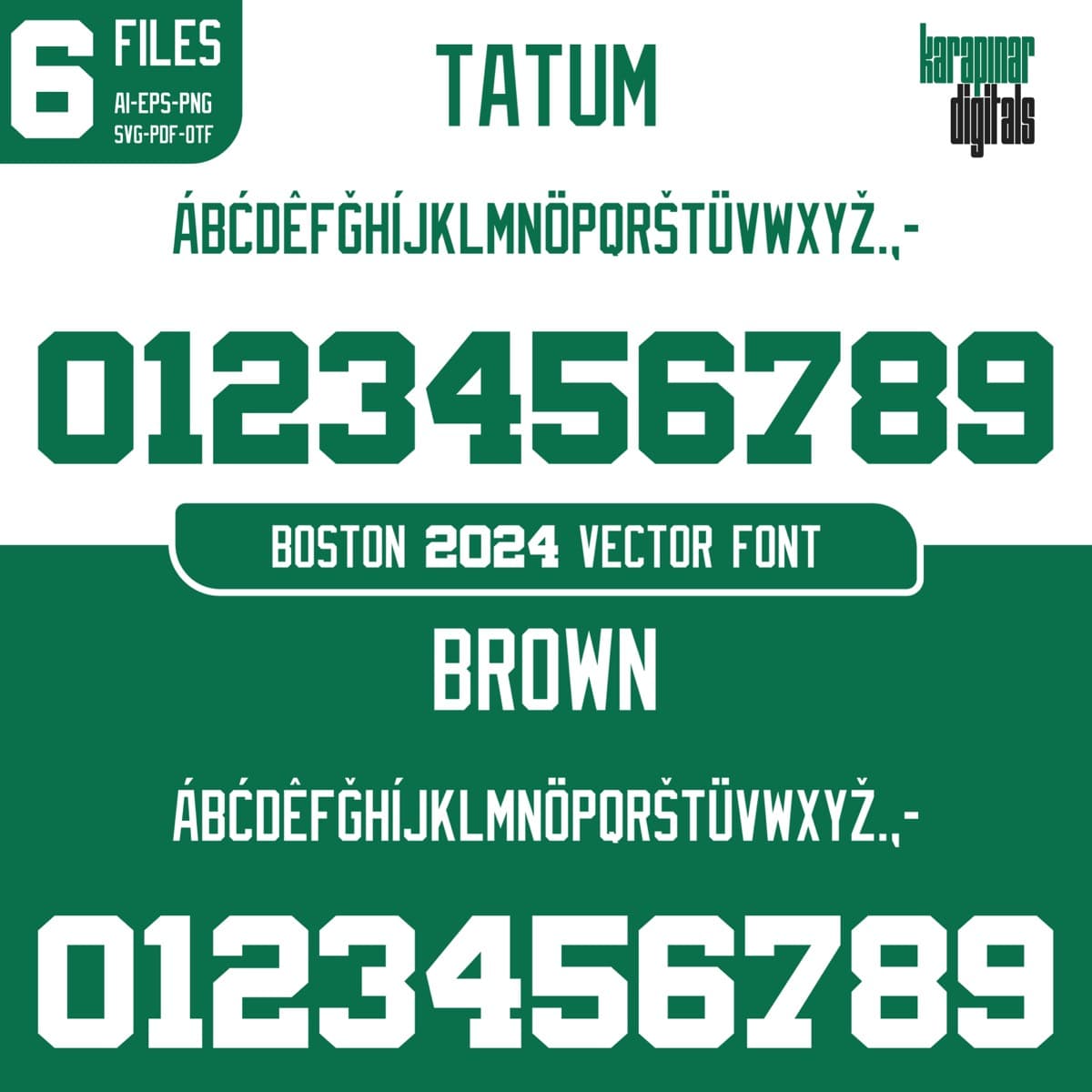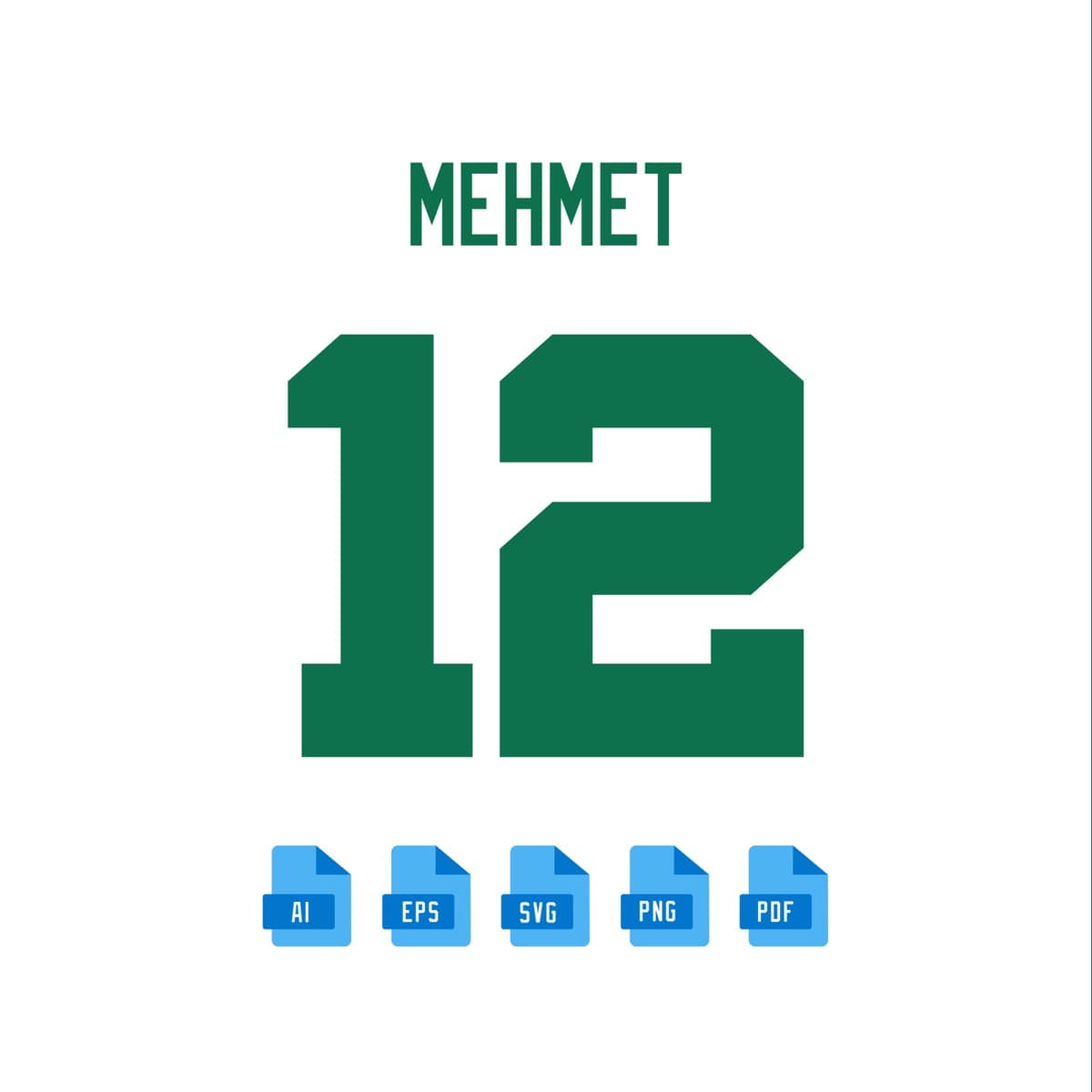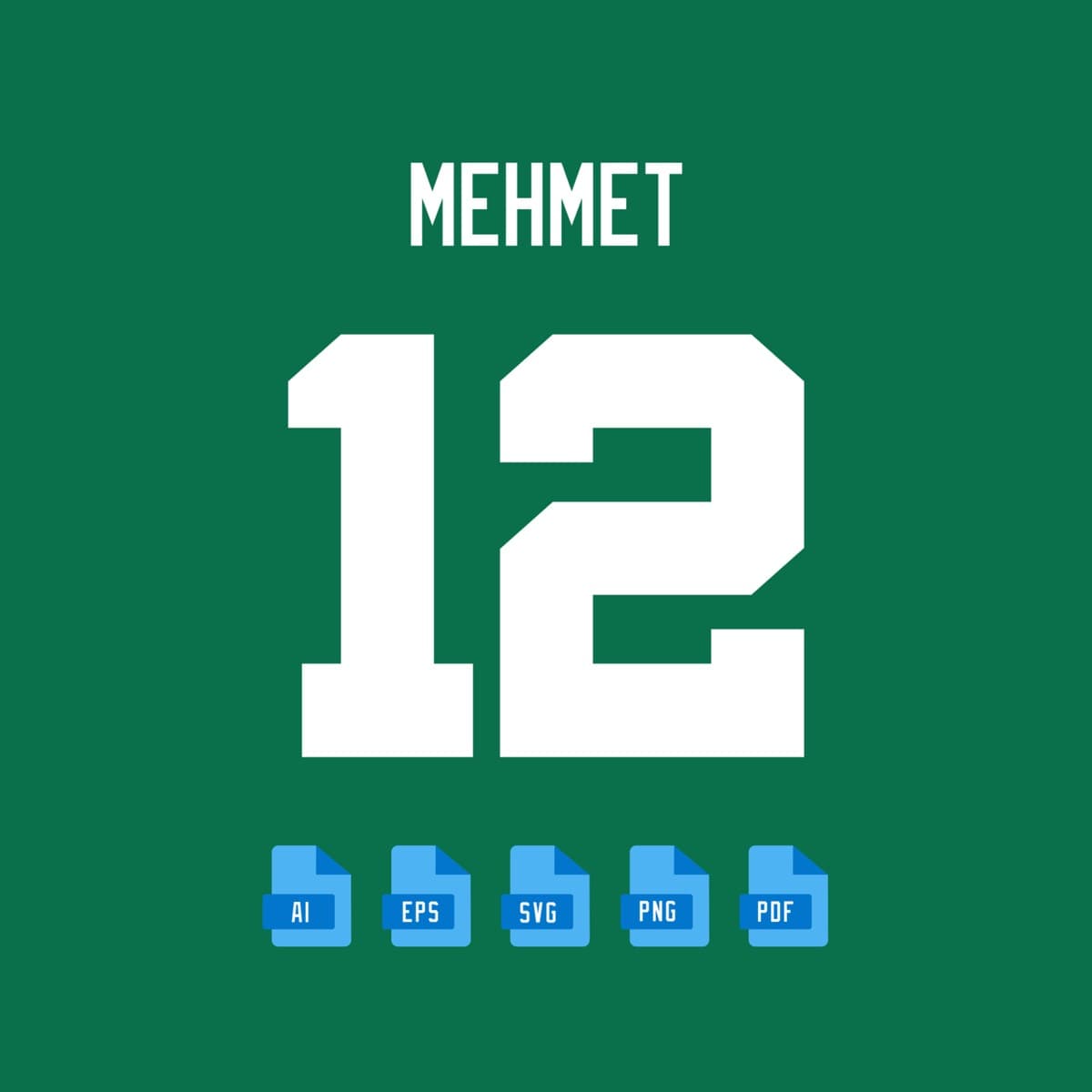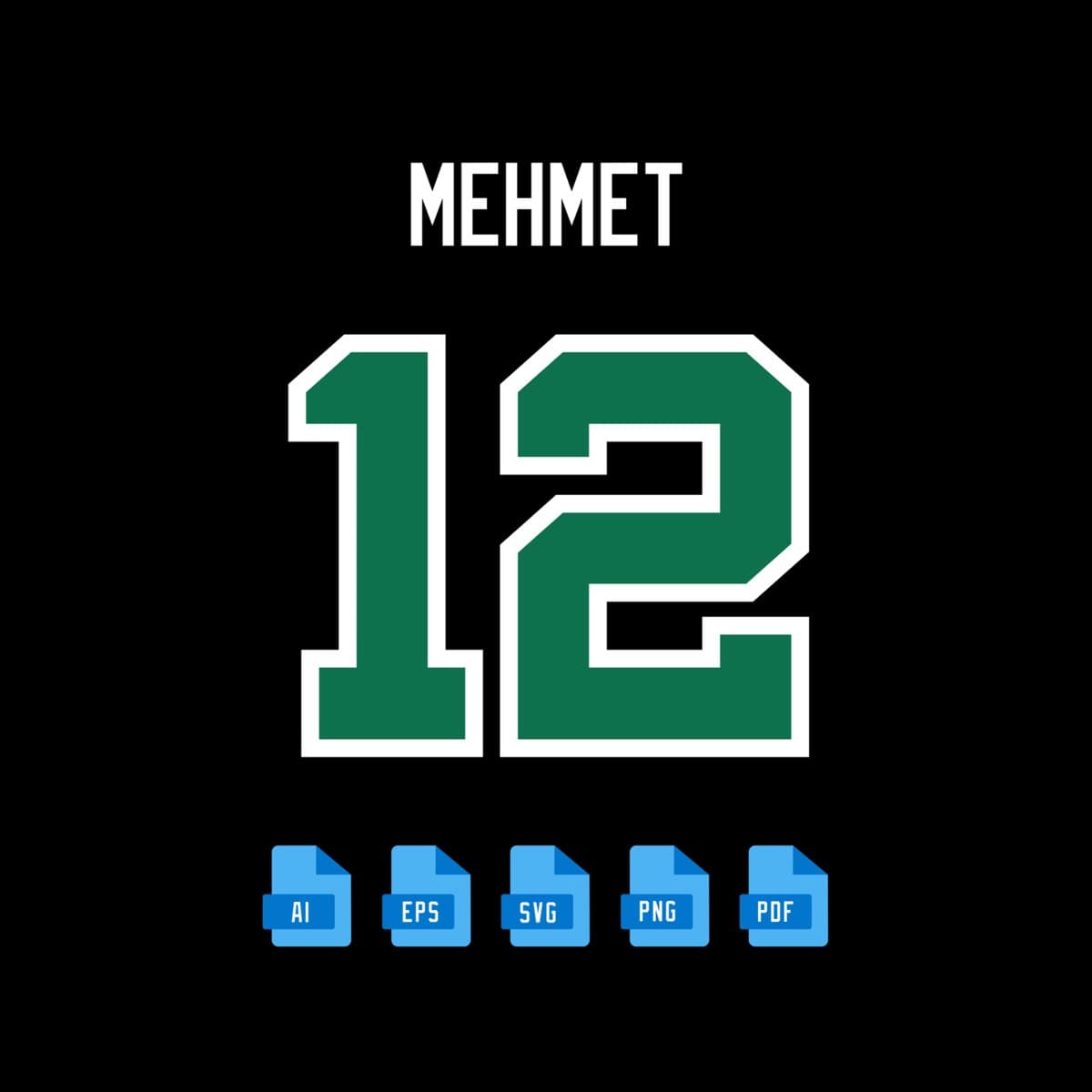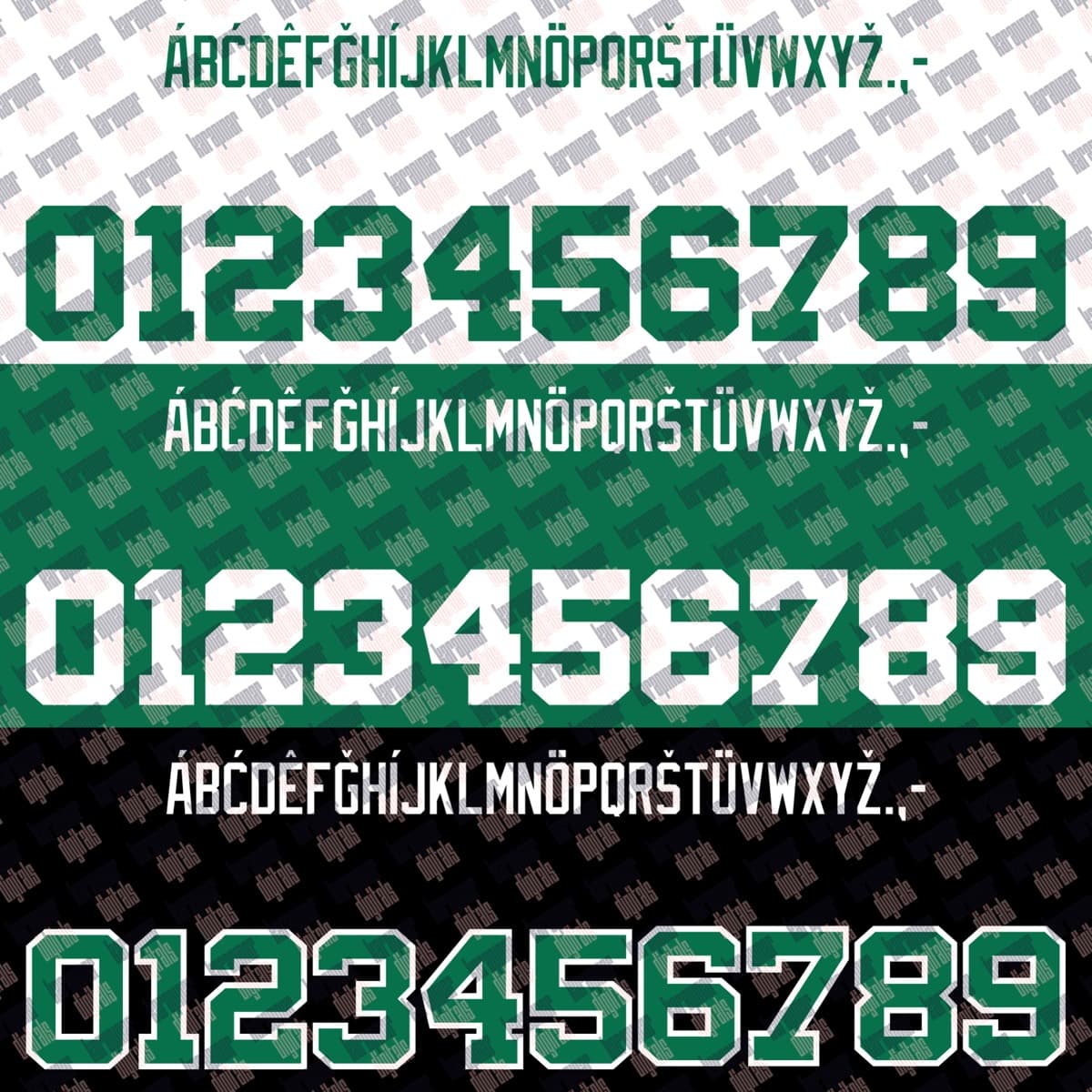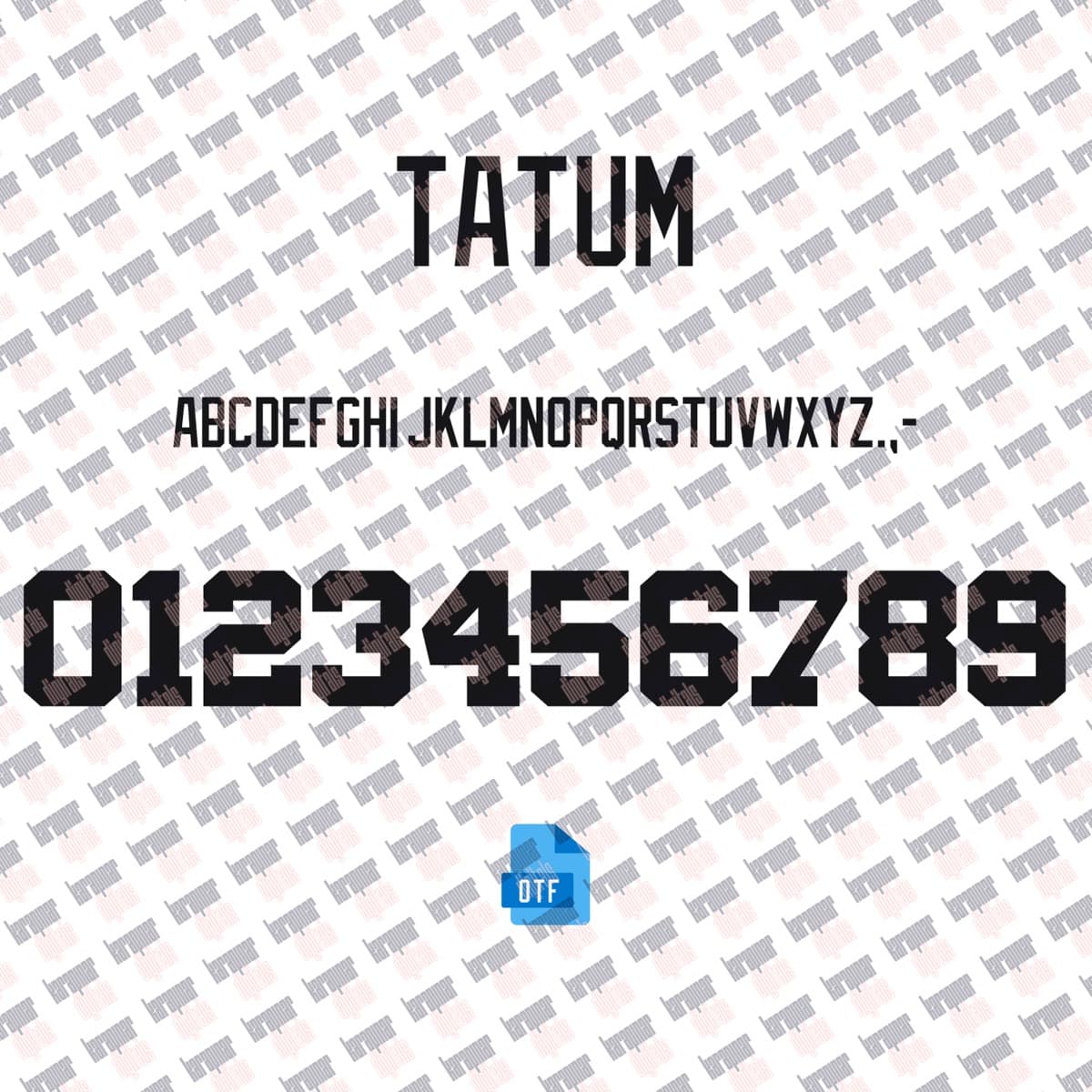
Boston Celtics 2024
A set inspired by the Boston Celtics 2024 jersey typography, with a name and number system redrawn for print and screen. Original curves, consistent weight and a complete 0–9 numeral family.